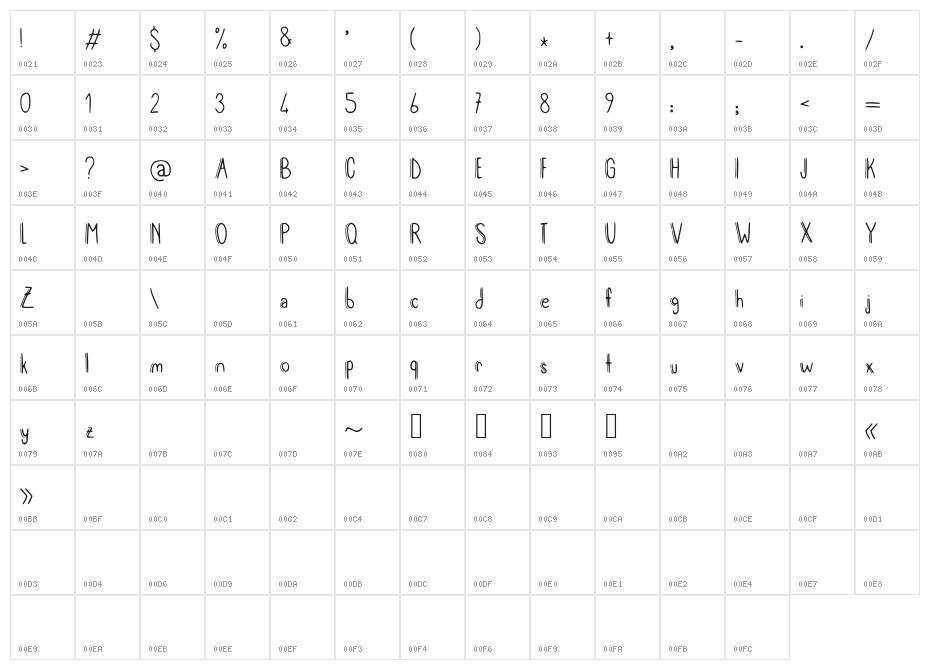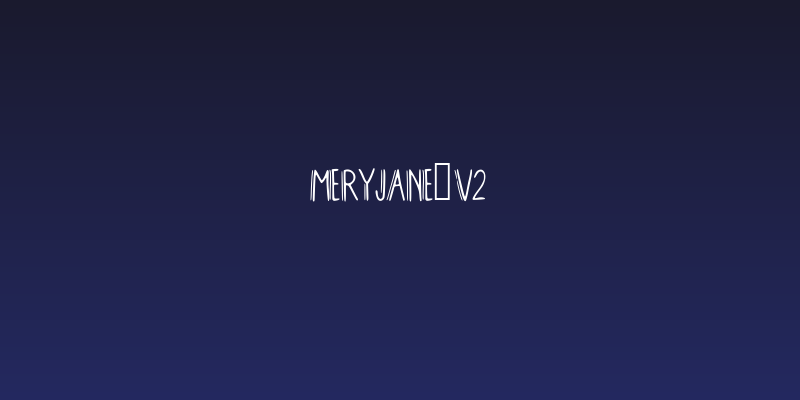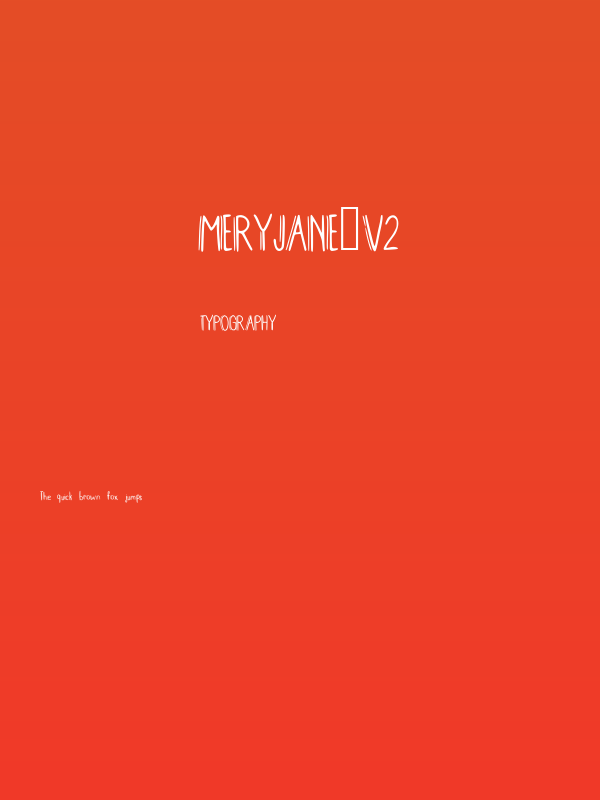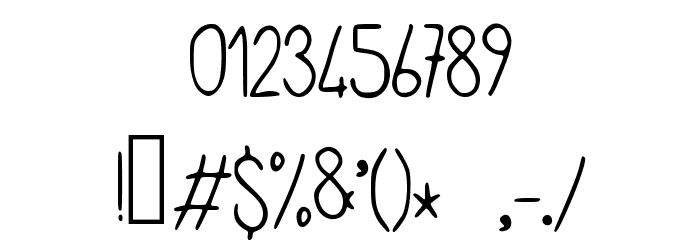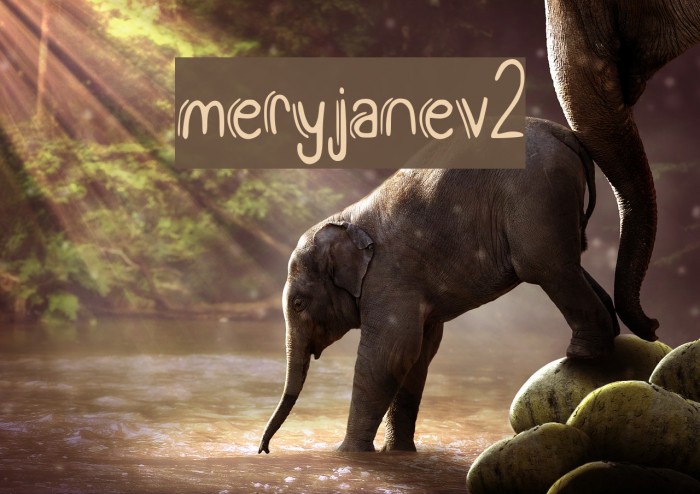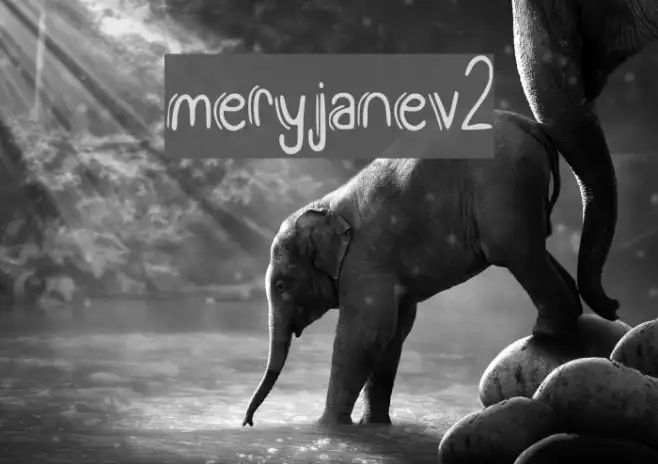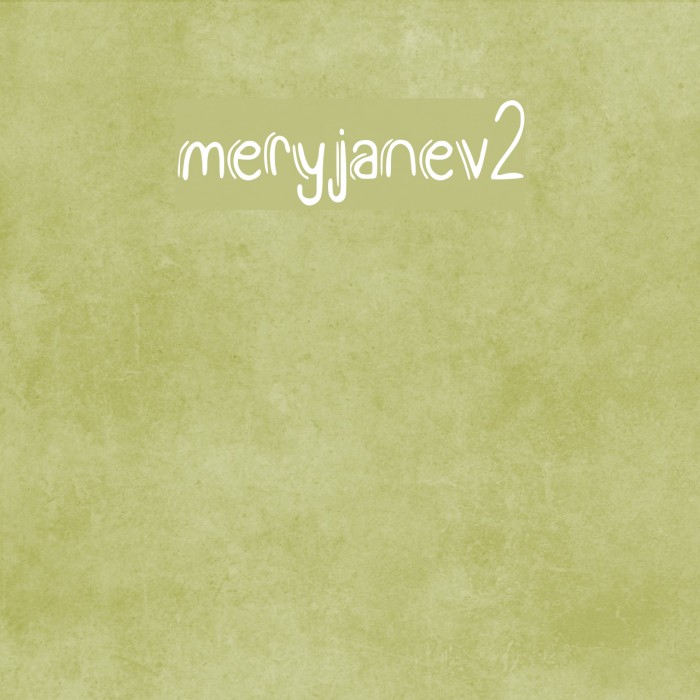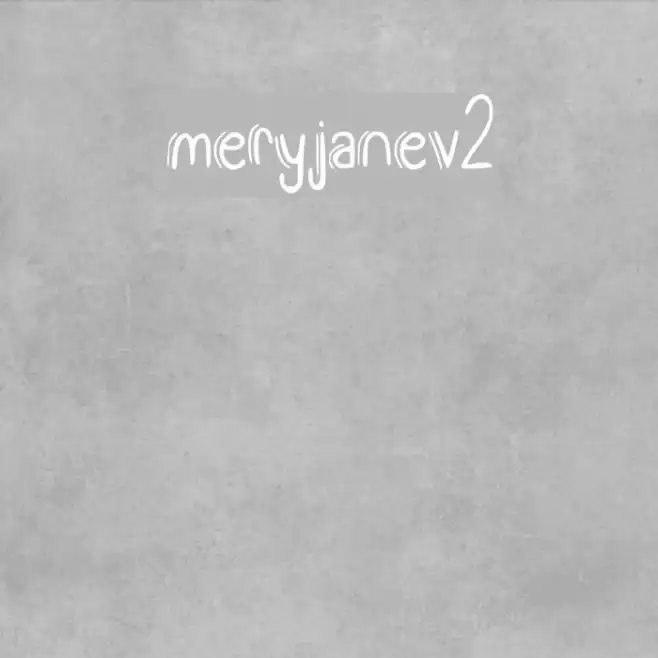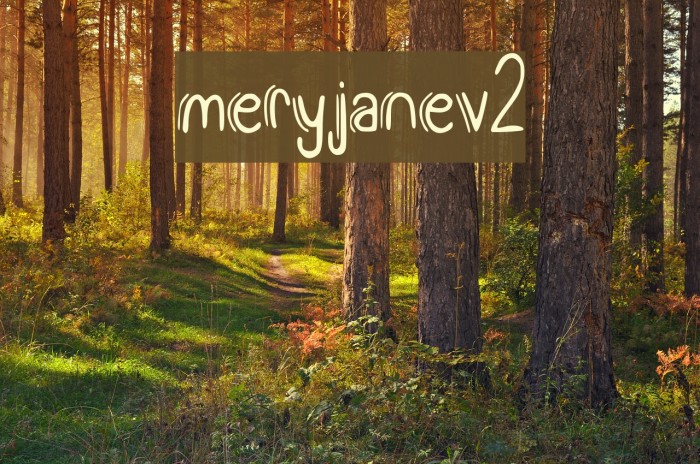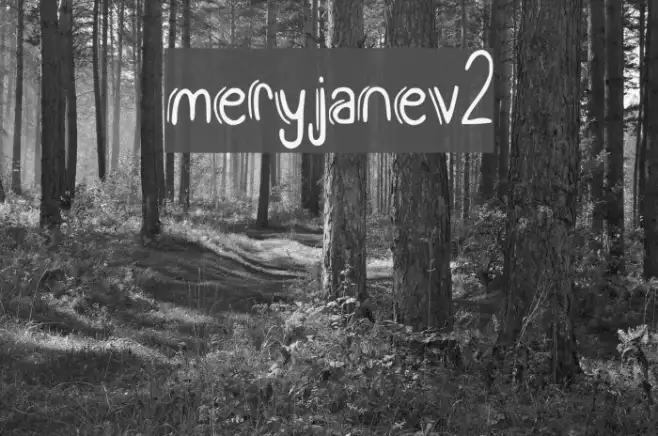
meryjane_v2 Font
meryjane_v2 Description
This font features a playful and whimsical style with elongated, narrow letterforms that give it a unique and quirky appearance. The uppercase letters are tall and slender, while the lowercase letters maintain a consistent height, providing a harmonious balance. The numbers and special characters follow the same elongated style, adding to the font's cohesive look. The strokes are smooth and slightly irregular, contributing to its hand-drawn feel. This font is perfect for projects that require a touch of creativity and fun, such as children's books, playful branding, or artistic posters.
MERYJANE_V2 UPPERCASE
MERYJANE_V2 LOWERCASE
MERYJANE_V2 OTHER CHARS
| Overall Style | Whimsical |